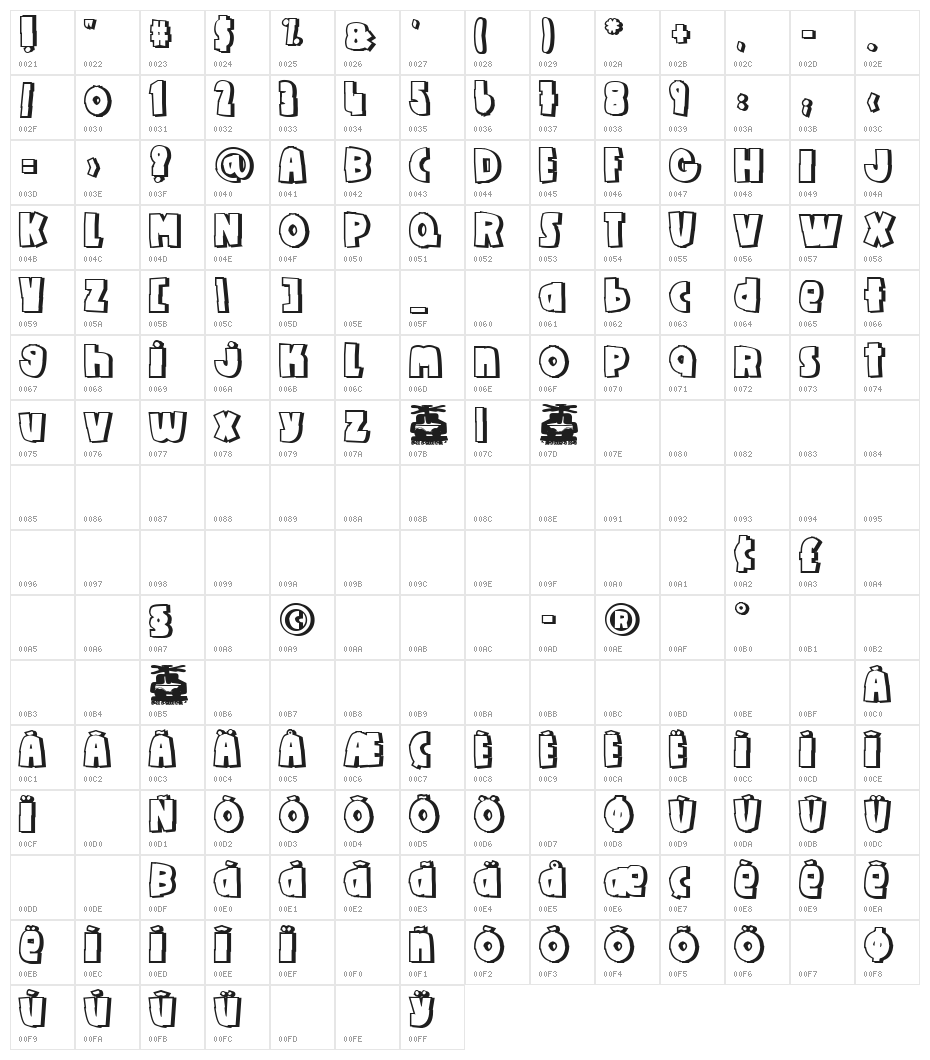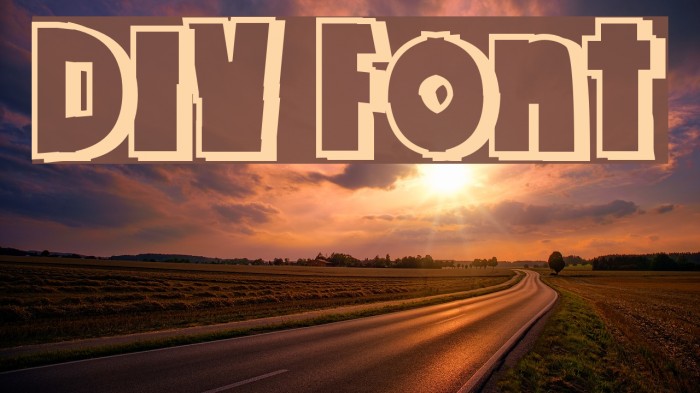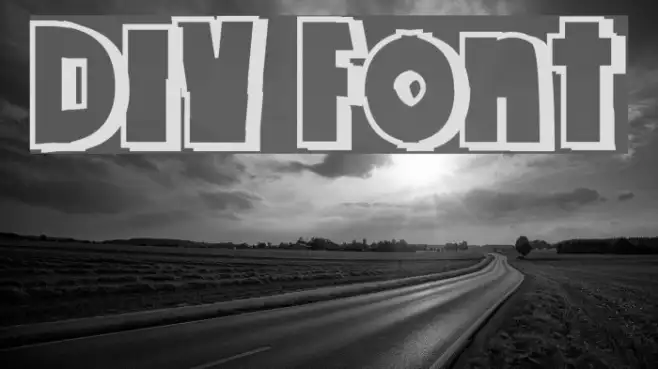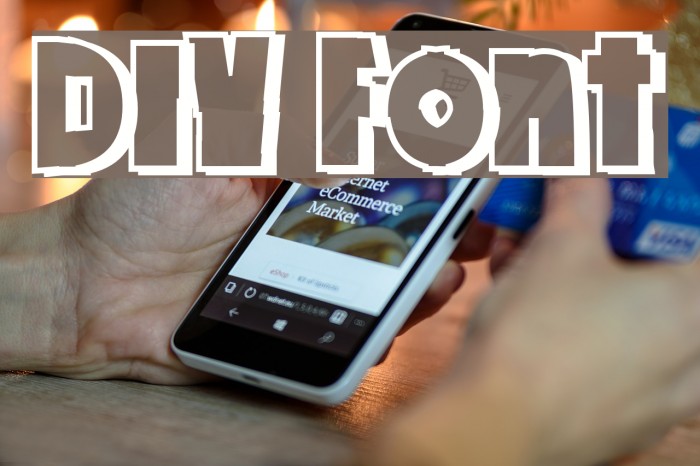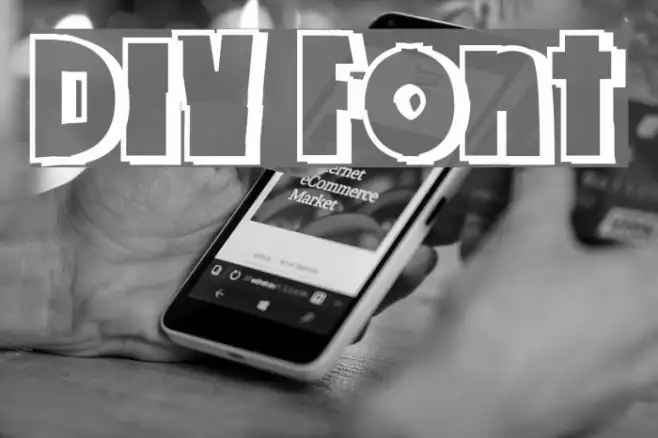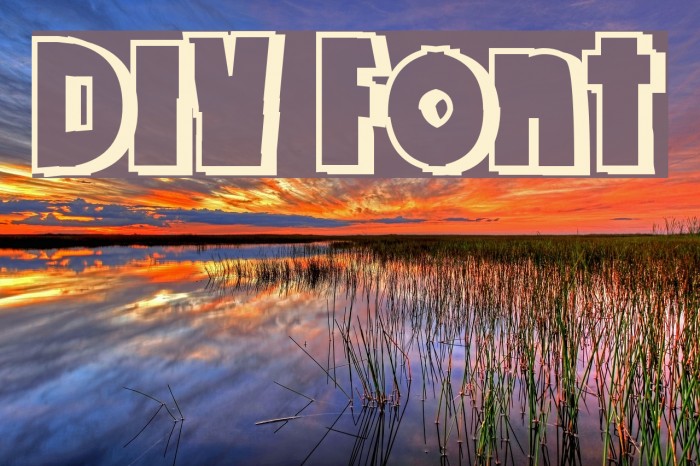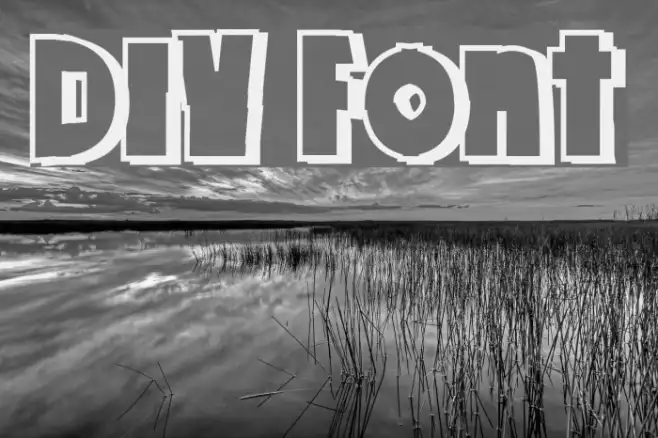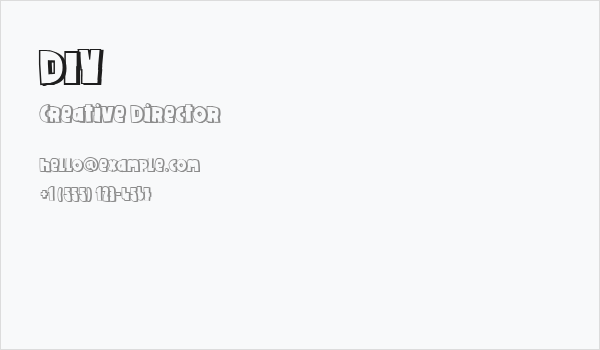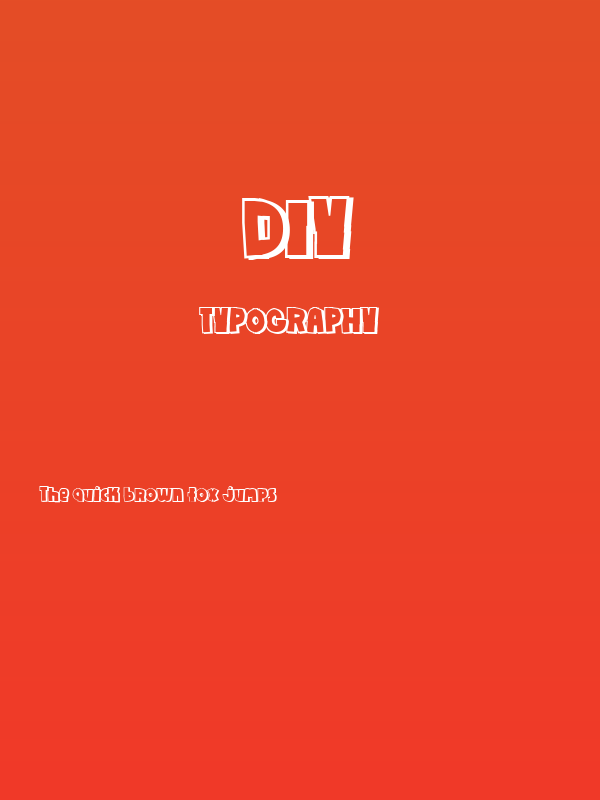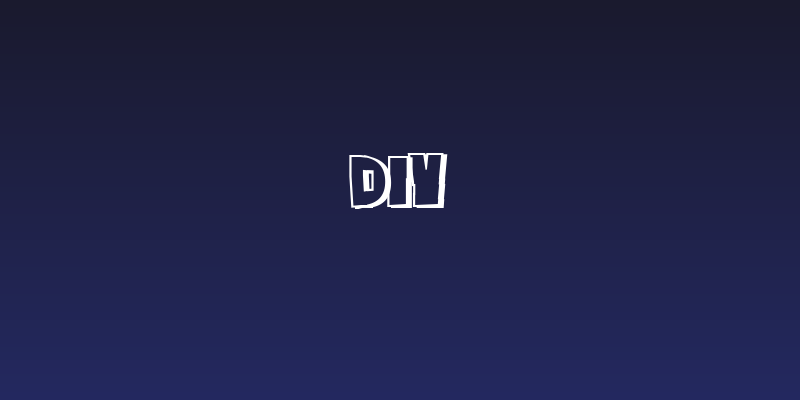
DIY Font
DIY Description
This font features a bold, playful style with a cartoonish flair. The characters are heavily outlined, giving them a three-dimensional appearance. Each letter and number is uniquely shaped, with exaggerated curves and angles that add to its whimsical nature. The font is highly legible, with a consistent stroke width that maintains clarity even at smaller sizes. Its boldness and distinctive style make it ideal for eye-catching designs. The special characters are equally bold and maintain the playful theme, making them suitable for creative projects.
| Overall Style | Playful, Cartoonish |
| Proposed Projects | Ideal for children's books, comic strips, playful branding, and eye-catching posters. |